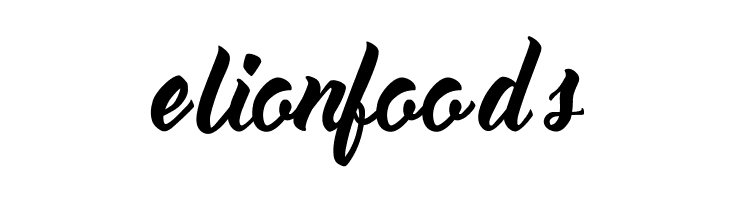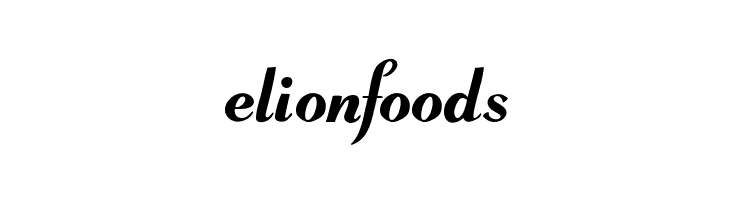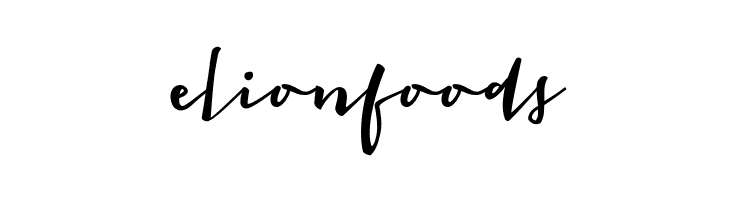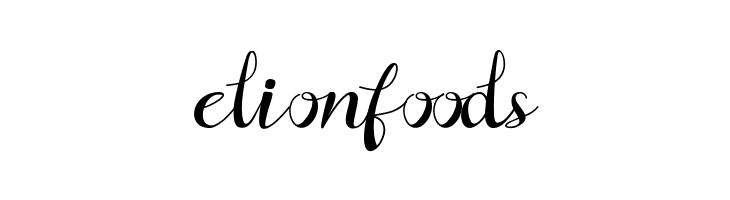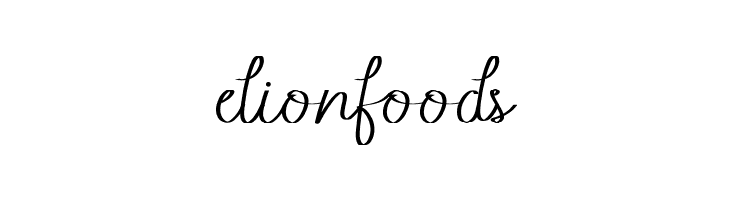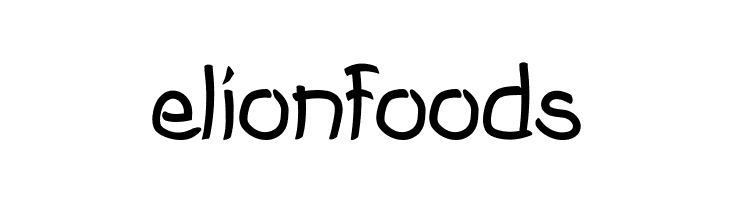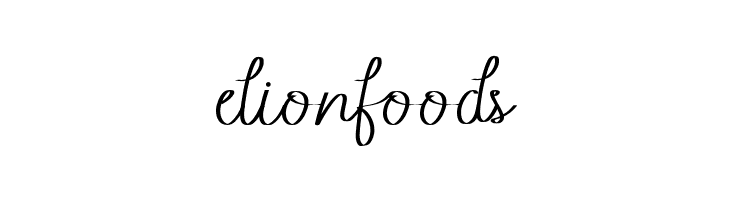
A dynamic and fluid script font with elegant curves and bold lowercase letters.
A classic script font with elegant, flowing curves and sophisticated style.
A dynamic and expressive handwritten font with fluid, cursive letterforms.
A flowing, cursive font with elegant, sweeping strokes.
An elegant script font with flowing cursive letters and intricate swashes.
A playful, handwritten-style font with consistent stroke thickness and a casual feel.
A playful, hand-drawn font with bold, rounded characters and a whimsical style.
An elegant script font with flowing, cursive letterforms and dynamic contrast.
An elegant script font with flowing cursive and decorative flourishes.
A playful, hand-drawn style font with whimsical, irregular strokes.